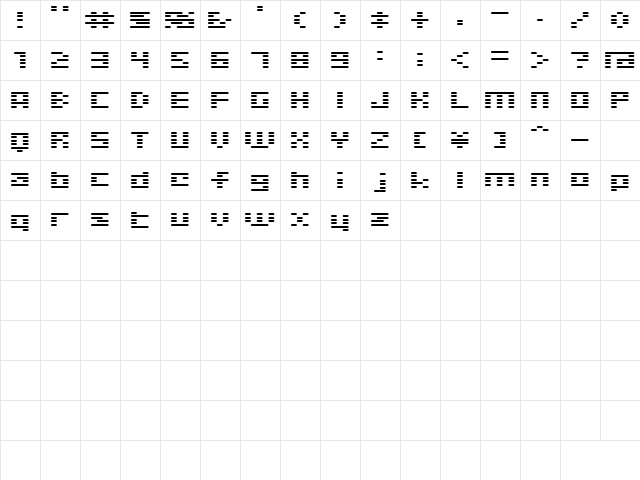
D3 Digitalism Round Regular
Design Context for D3 Digitalism Round Typeface
D3 Digitalism Round has a distinctly futuristic character, with geometric precision and clean angles that feel at home in technology, gaming, and sci-fi contexts.
Pro Tip: Use D3 Digitalism Round in combination with a neutral sans for body text. Let it define the brand voice in headlines while keeping reading comfortable elsewhere.